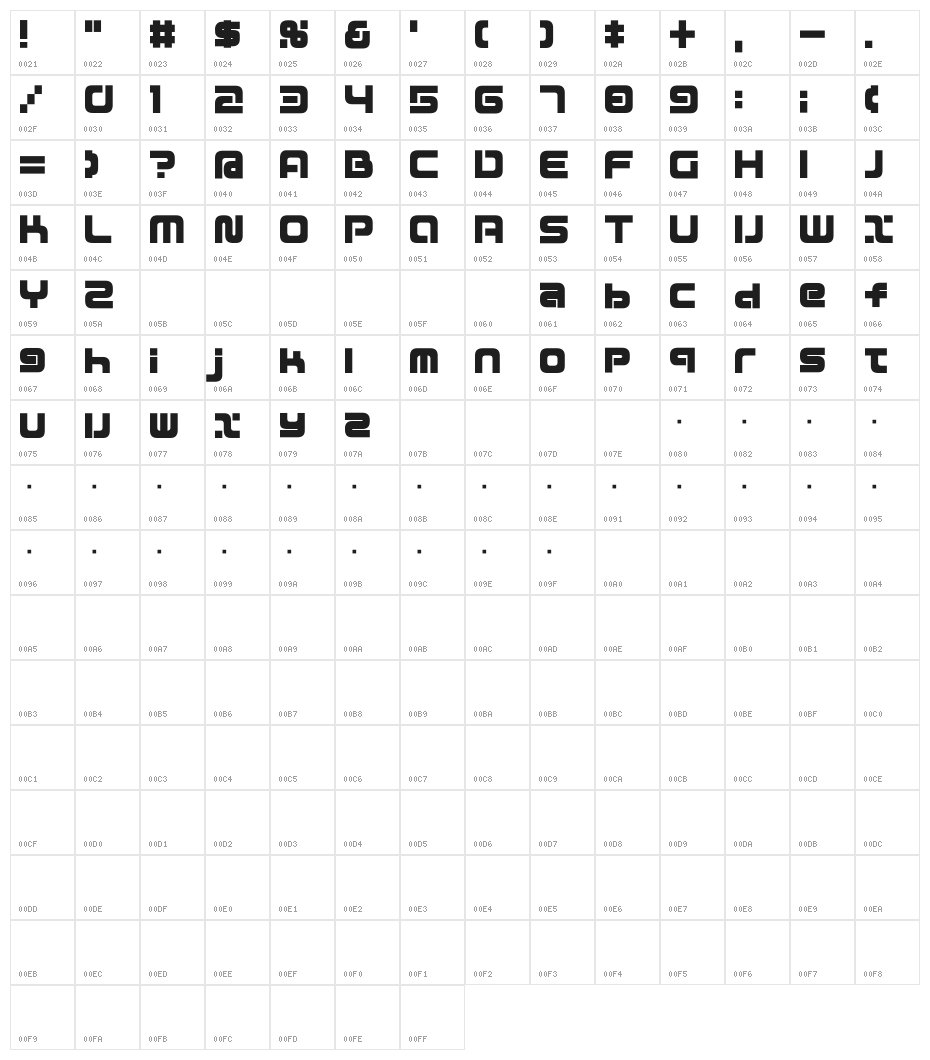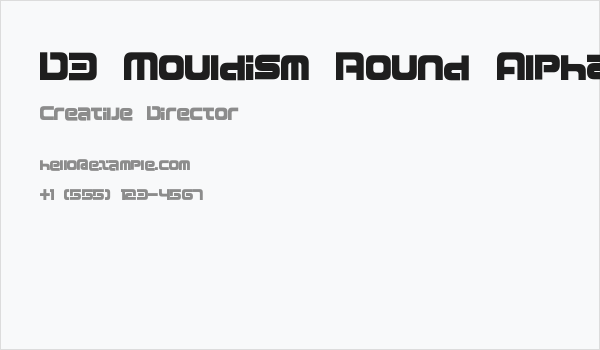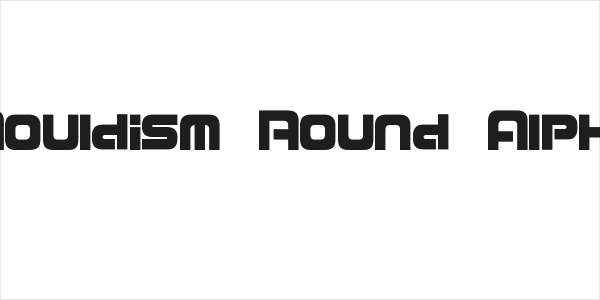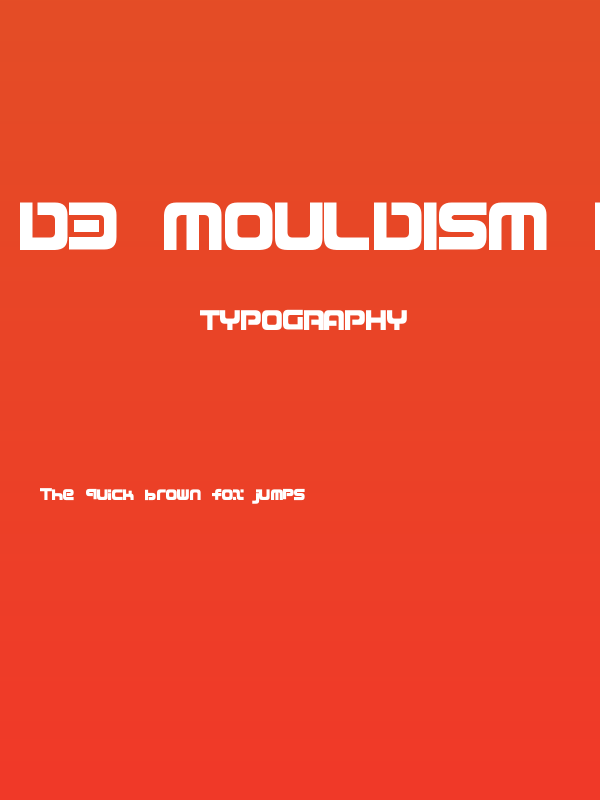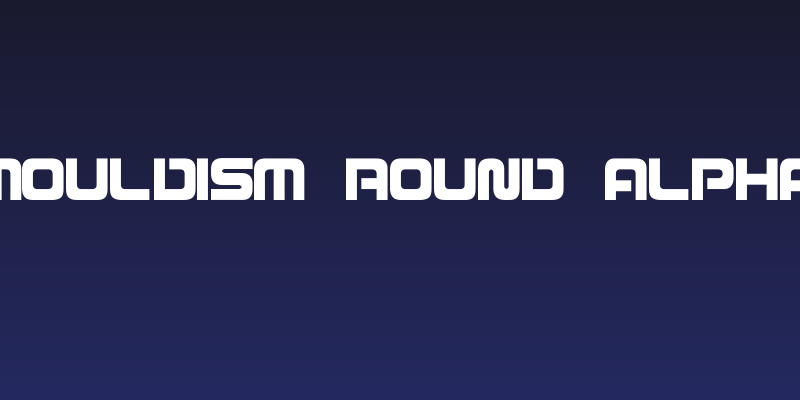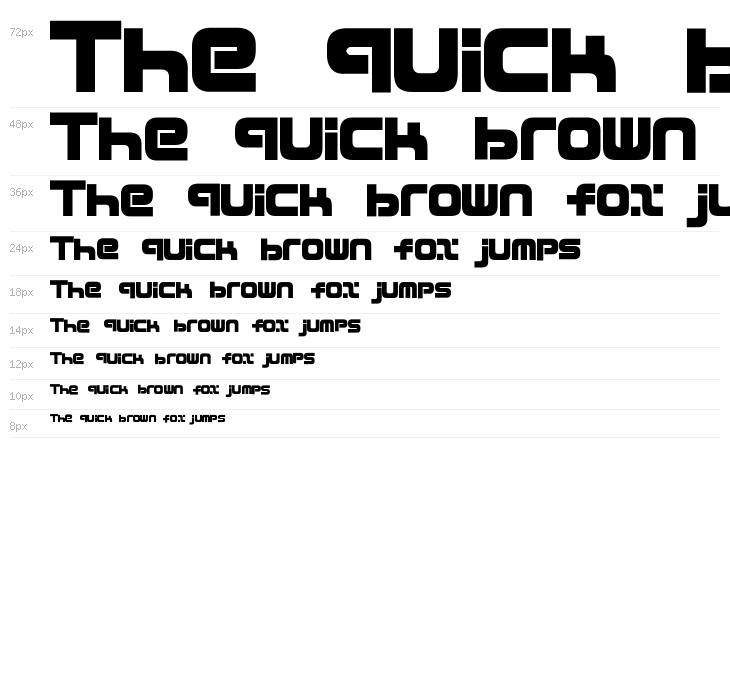
D3 Mouldism Round Alphabet Font
D3 Mouldism Round Alphabet Description
This font features a bold, geometric style with rounded edges, giving it a futuristic and modern appearance. The characters are uniformly thick, creating a strong visual impact. The uppercase and lowercase letters maintain a consistent height, contributing to a cohesive look. The numerals and special characters share the same design principles, ensuring uniformity across all elements. The overall design is clean and minimalistic, making it suitable for projects that require a contemporary and sleek aesthetic.
| Proposed Projects | Ideal for technology branding, futuristic posters, video game titles, and modern logo designs. |